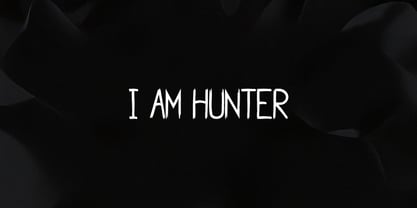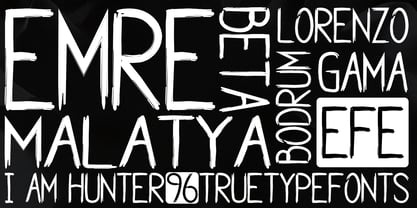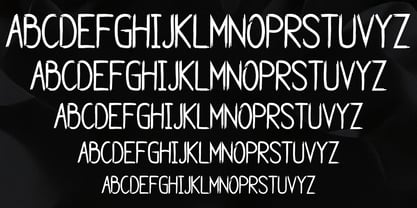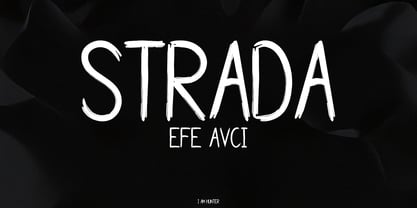
Strada
by Efe Avcı
Strada is a handwritten brush font. Includes bonding characters that will take your projects to the next level!
You can easily access all the glyphs full of brushes! It also has many special features, including glyphs. Font designs made for various vector designs can be used in prints such as digital wedding blogs, online stores, social media, clothing, accessories, bags, pins, logos, business cards, watermarks and many other product areas. ...
This way you can make your product look brushed and attractive.
About Efe Avcı
I, EFE AVCI, started making fonts 2 years ago. I continue to make fonts in the form of handwritten drawings. Every year I will share at least 2 font families. I was born in Malatya Battalgazi and I will continue to make fonts for at least 15 years and I will change the style of the fonts I make every year, recreate them and share them with you. The styles I will make will not be a font made by going on a style, I will create my own style and stay true to my own style and share the most suitable font with you.